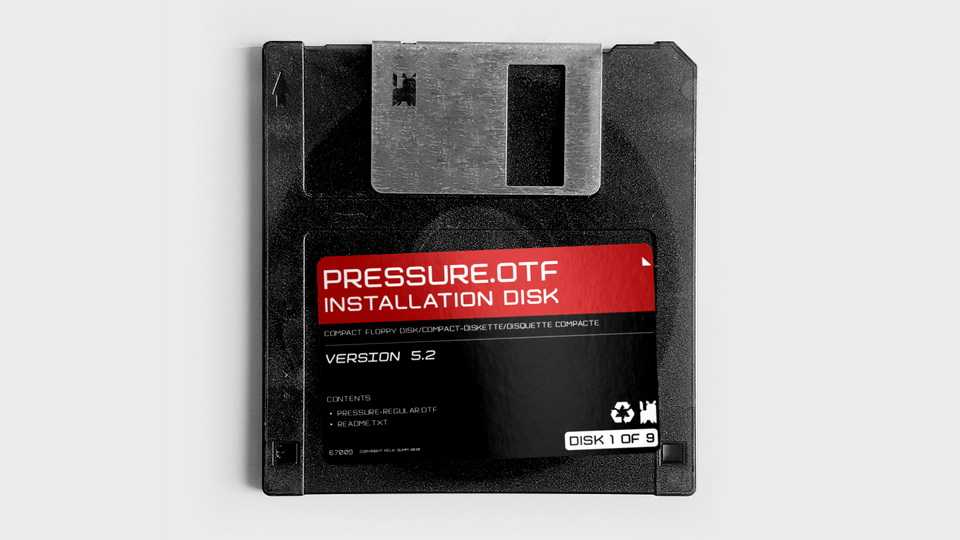
Download FPD Pressure font, a display typeface inspired by DSA profile keycaps and retro keyboards such as the Space Cadet and fonts featured in science-fiction movies.
Designer: Felix Summ